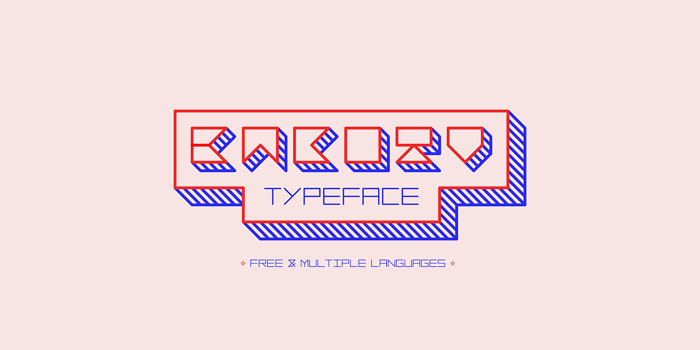
Bacotu Font
Bacotu is a display typeface inspired by chessboard of Chinese Chess.
It's light stroke, square and rounded. Perfectly suited for short paragraph, logo, poster and any display use.
Bacotu has supported for Vietnamese and many other Latin languages.